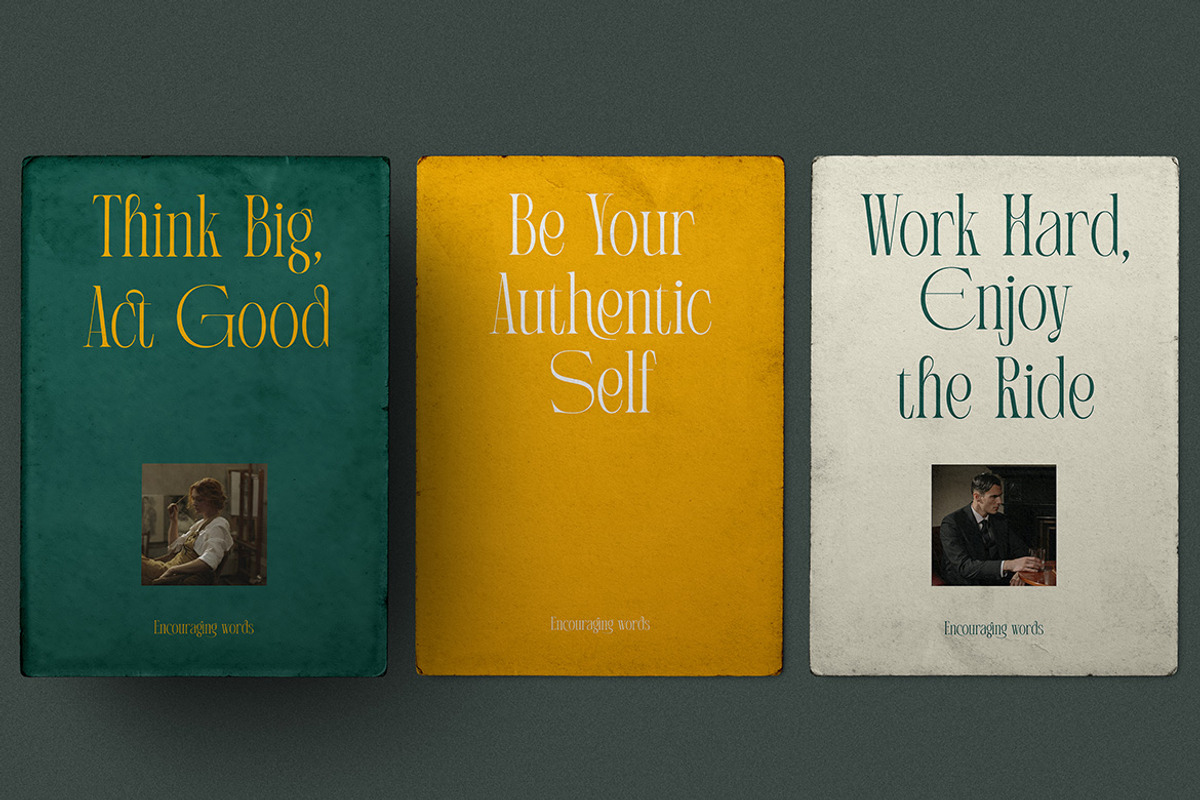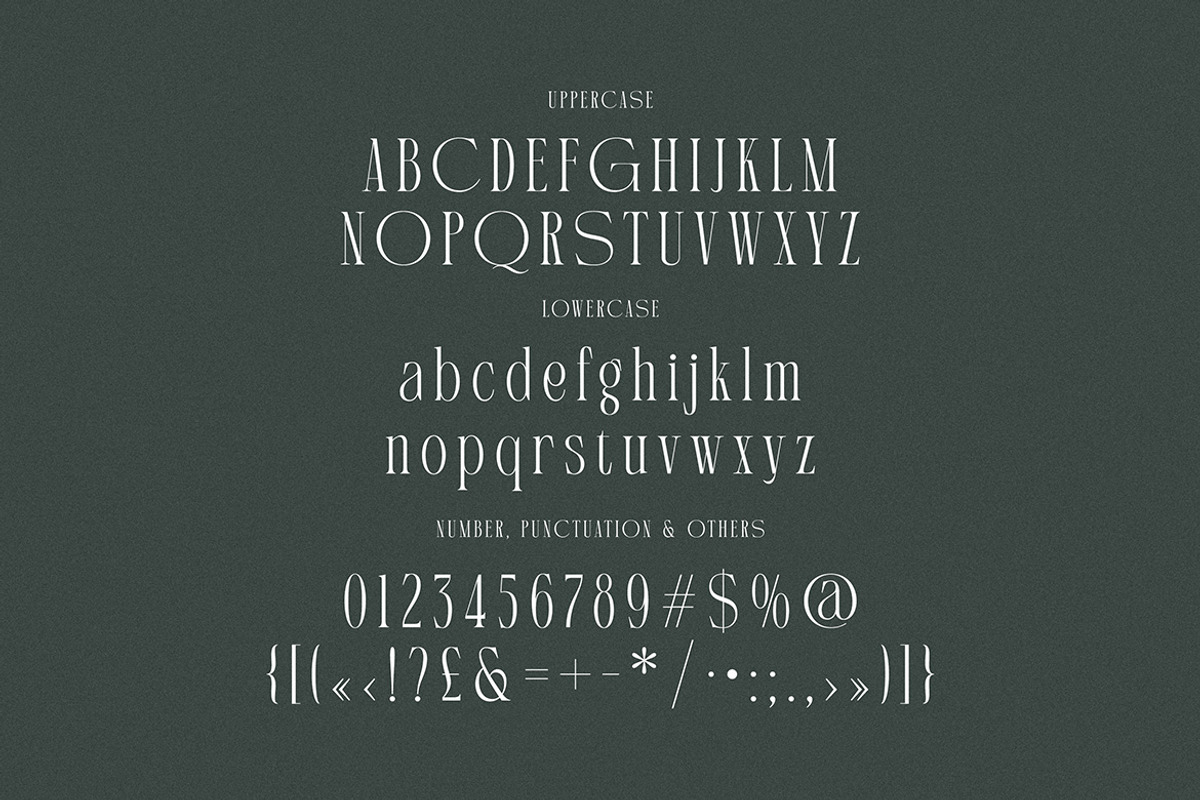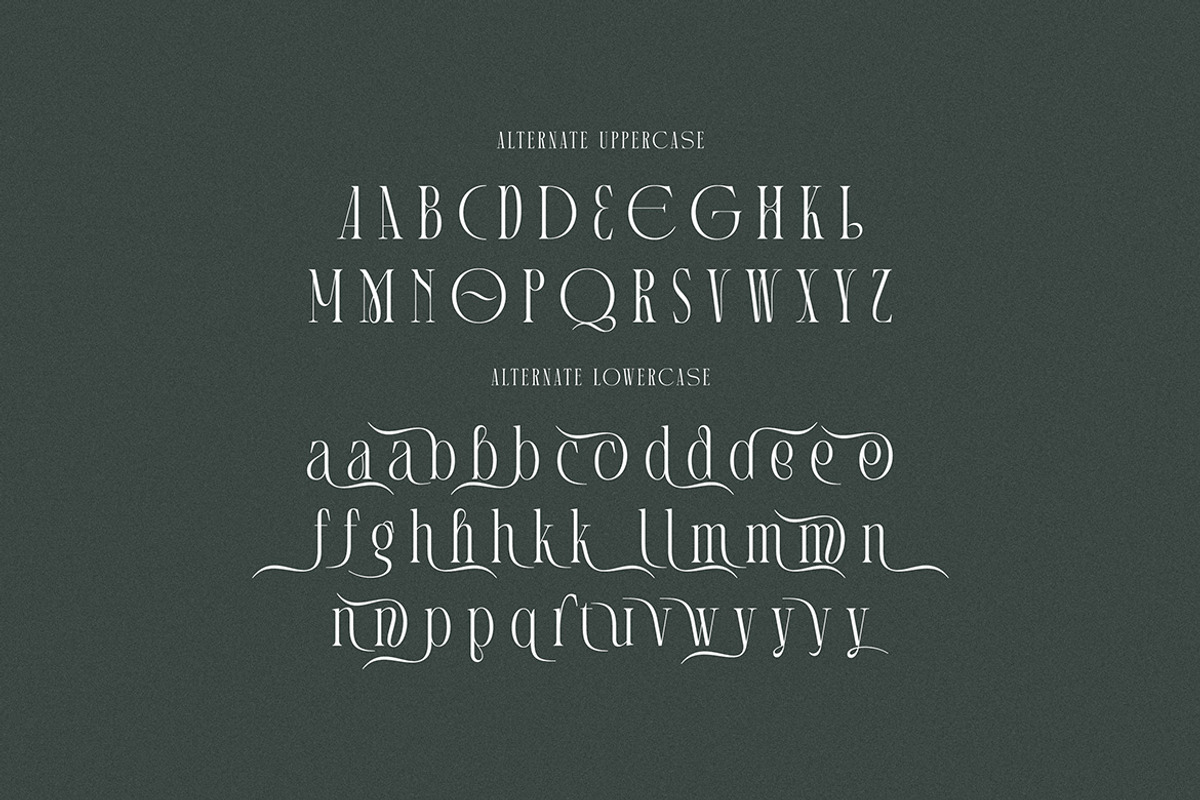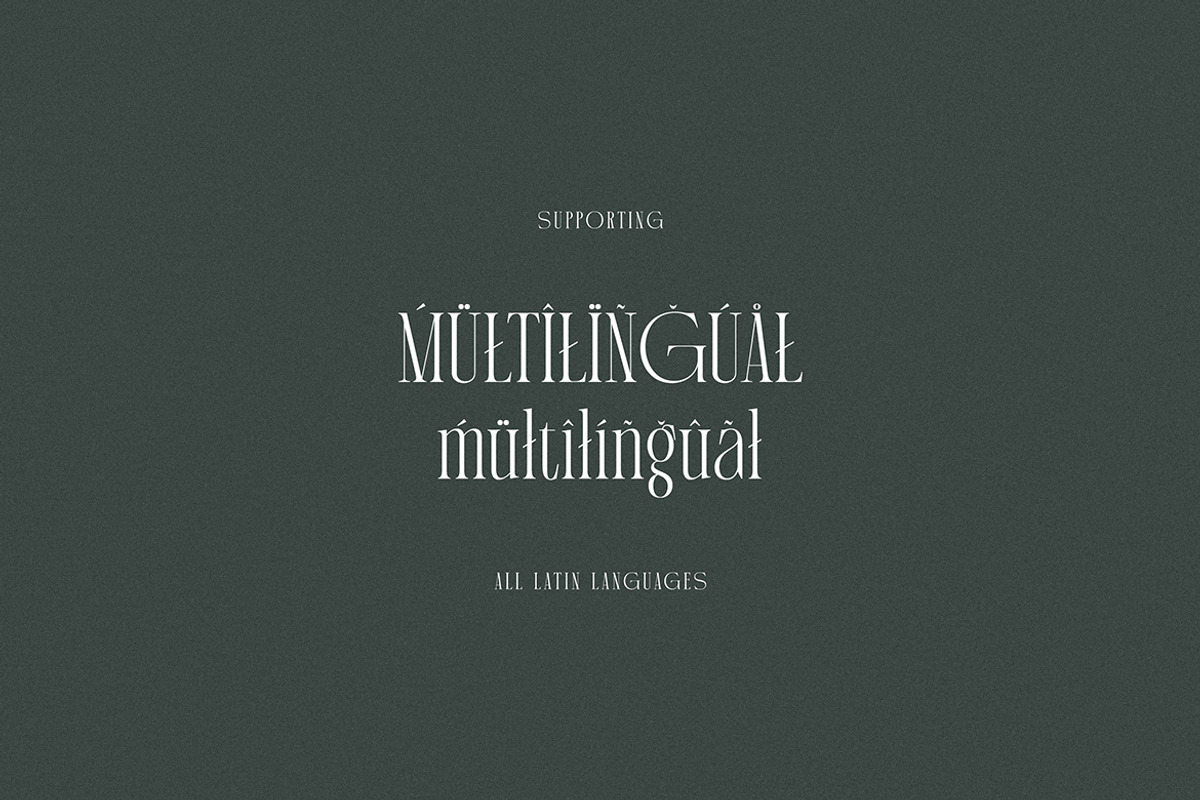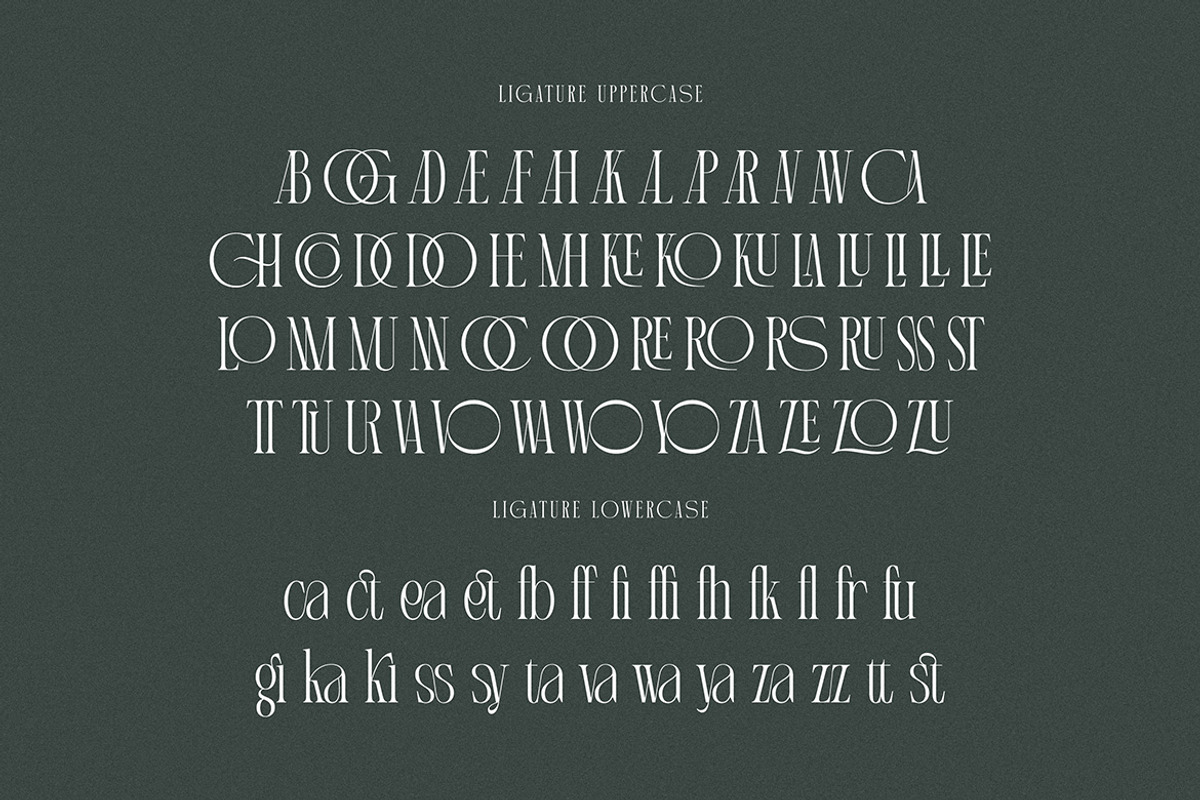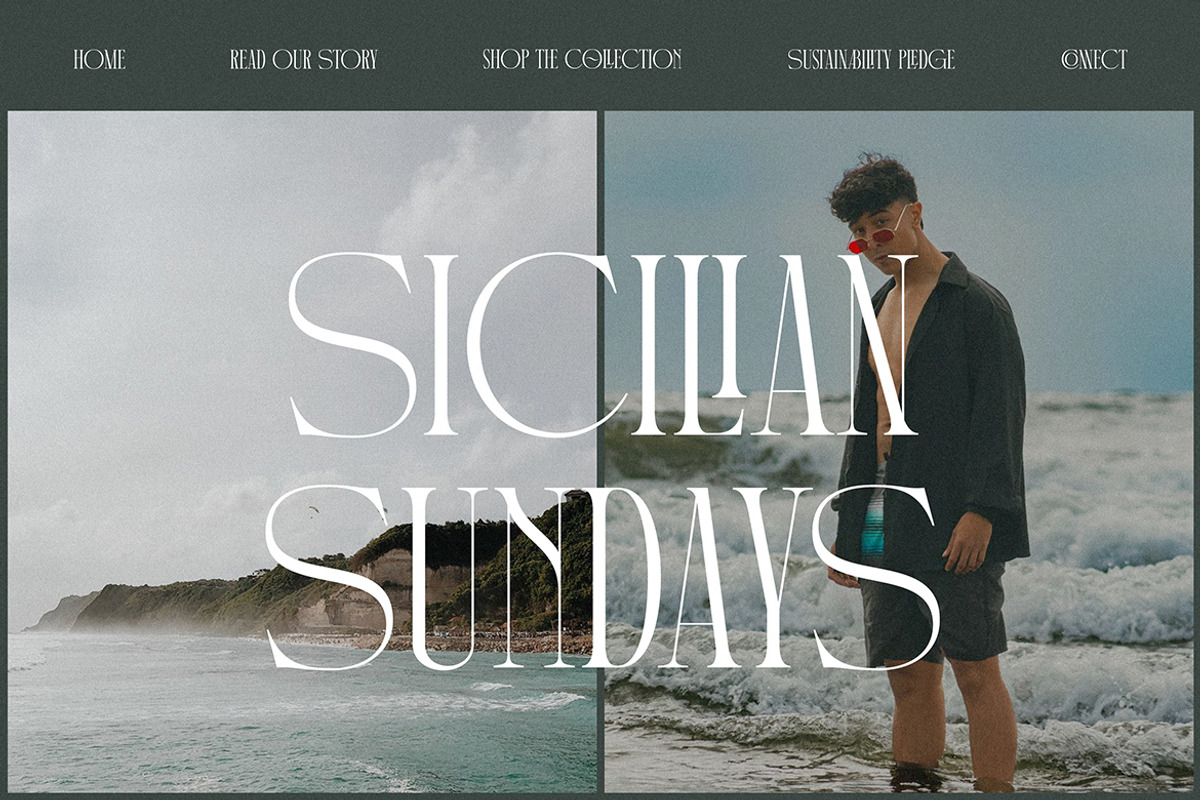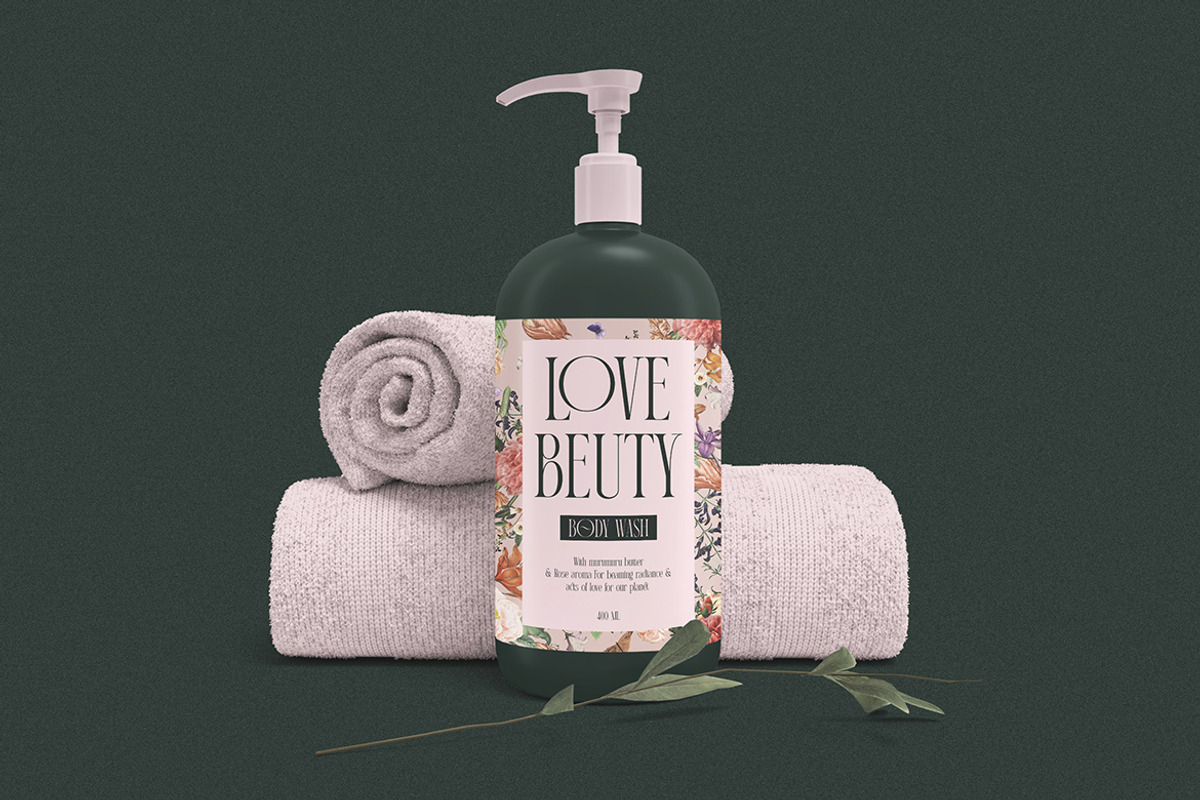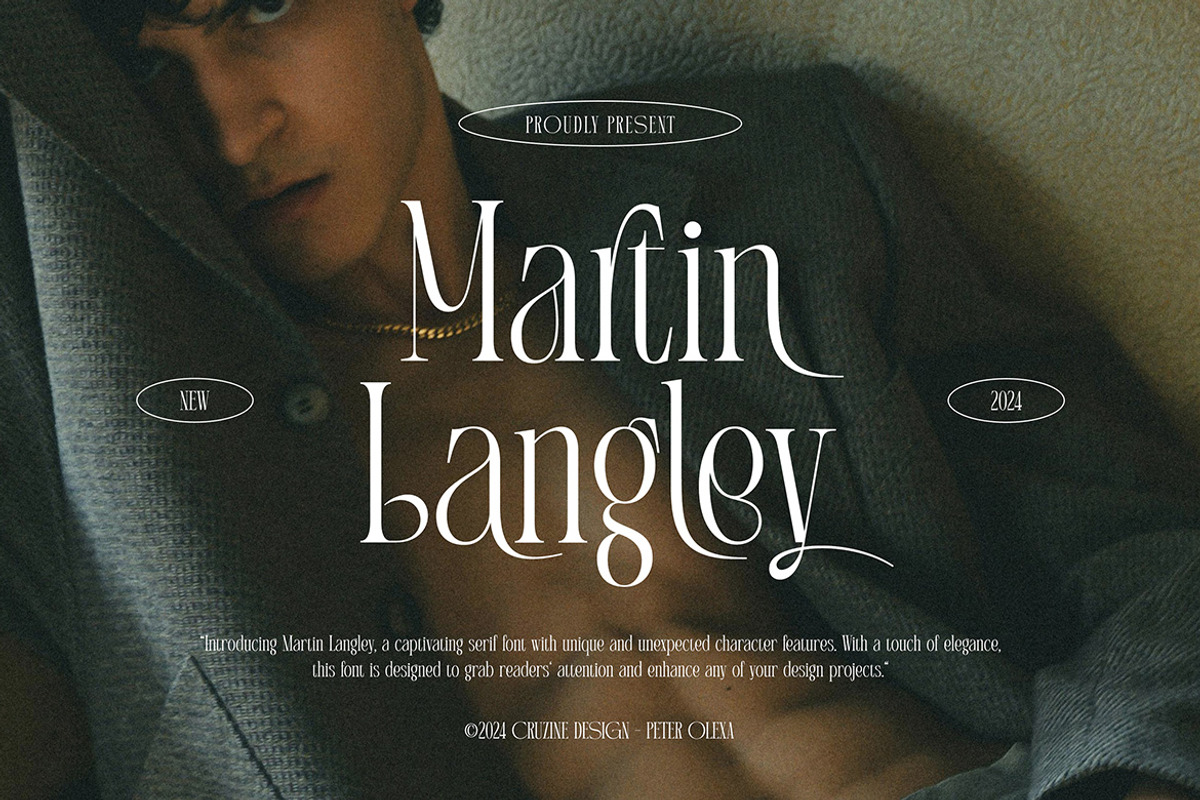
Martin Langley Elegant Serif
Trendy, elegant, luxury, creative, condnesed & modern style serif font for your new fancy projects. Stylish, romantic and classic style on Martin Langley font will be great for any modern or classy branding project. Lot of alternates and ligatures will help you to create unique and original logo design or website header! Enjoy :)
- Alternate characters & lot of ligatures
- Great for modern branding projects!